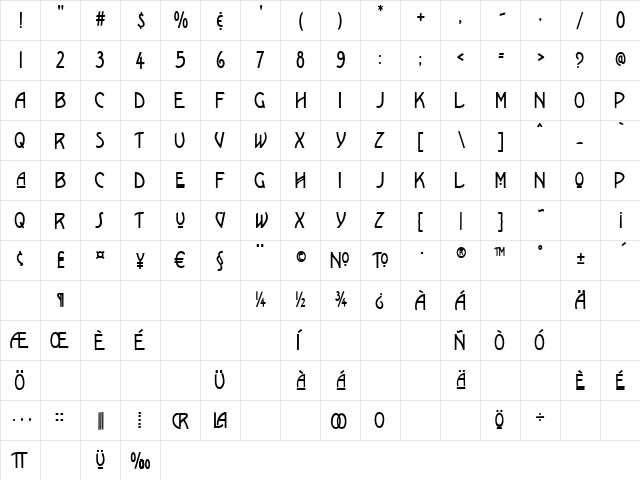
Syracuse Regular
| Foundry | ARROYO-STYLE California |
| Designer | ARROYO-STYLE California |
Design Context for Syracuse Typeface
Syracuse takes a measured approach to typography — its balanced proportions and neutral character make it a reliable workhorse for both digital and print work.